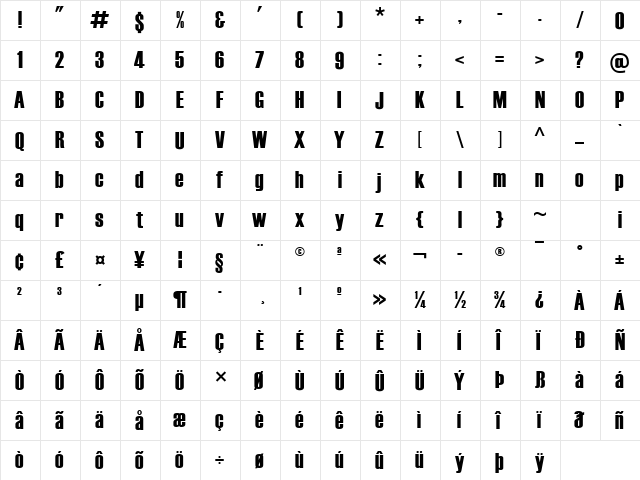
Haettenschweiler Regular
Design Context for Haettenschweiler Typeface
Haettenschweiler offers clean, dependable letterforms without strong stylistic allegiance, making it a practical choice for designers who need flexibility.
Pro Tip: Use Haettenschweiler in both headline and body roles to test its range before committing to a single application.